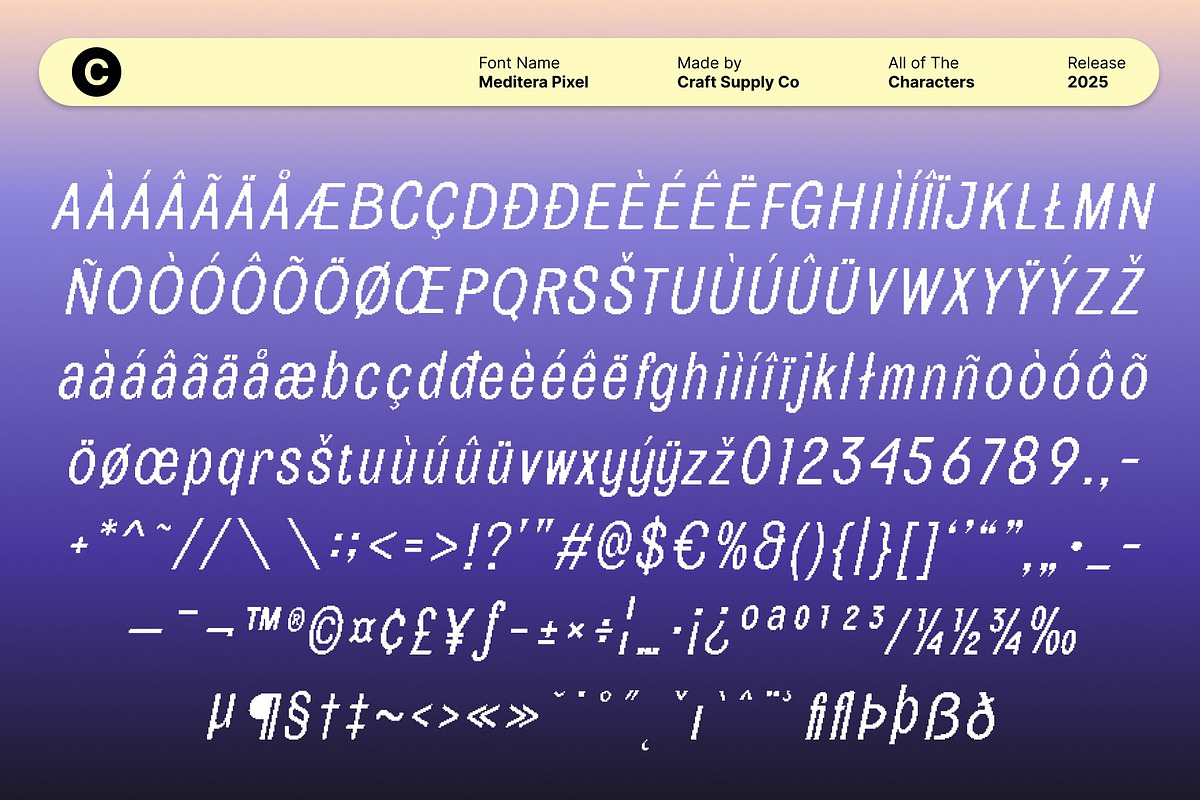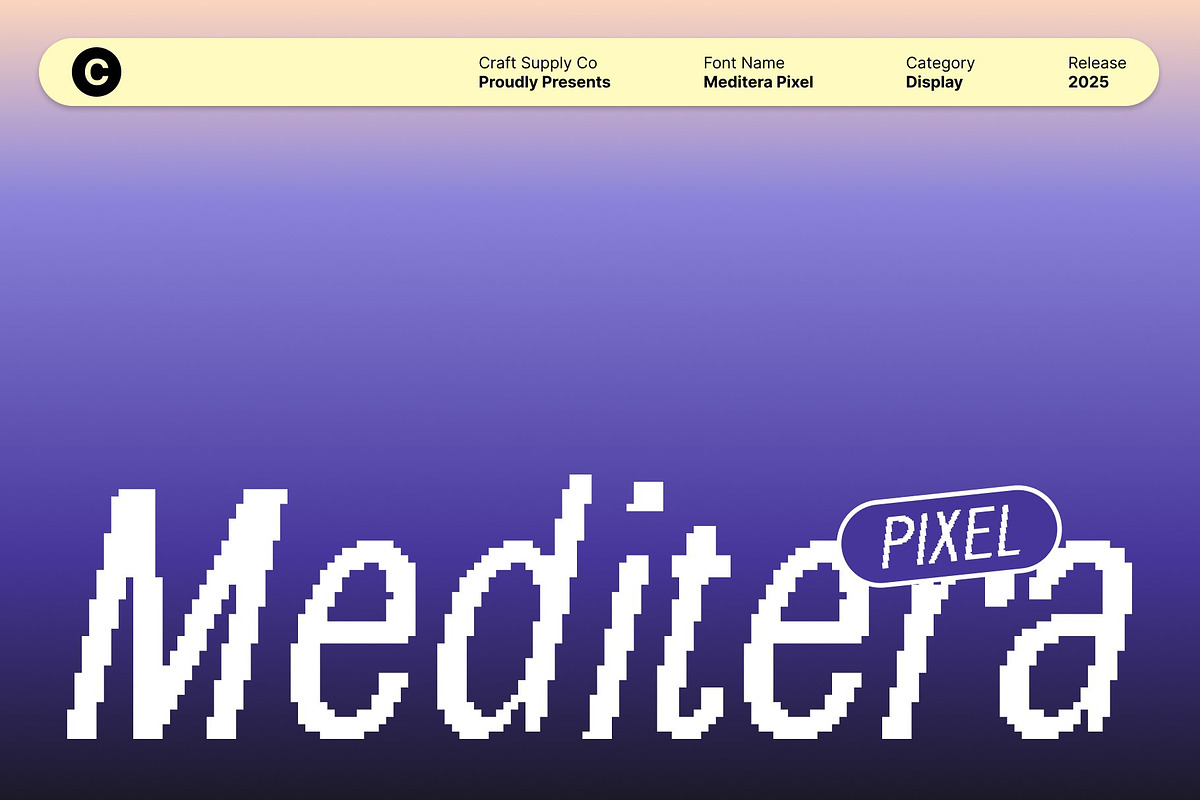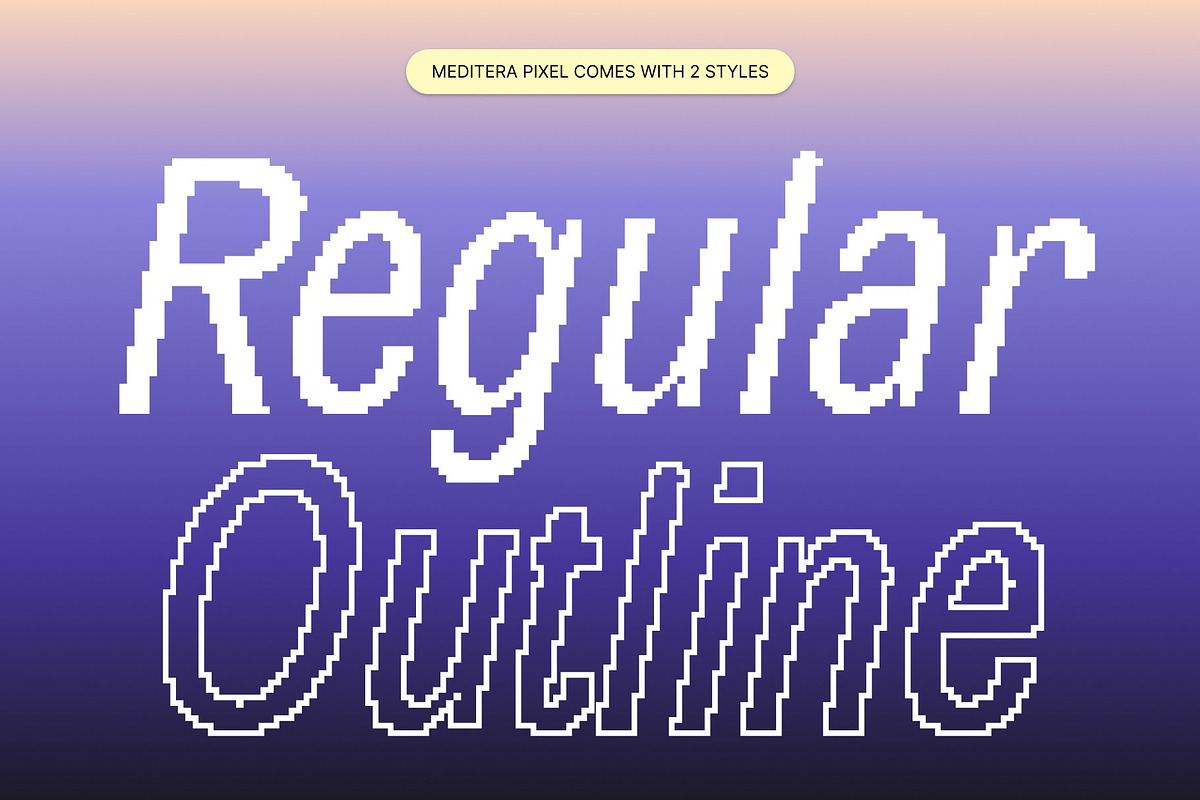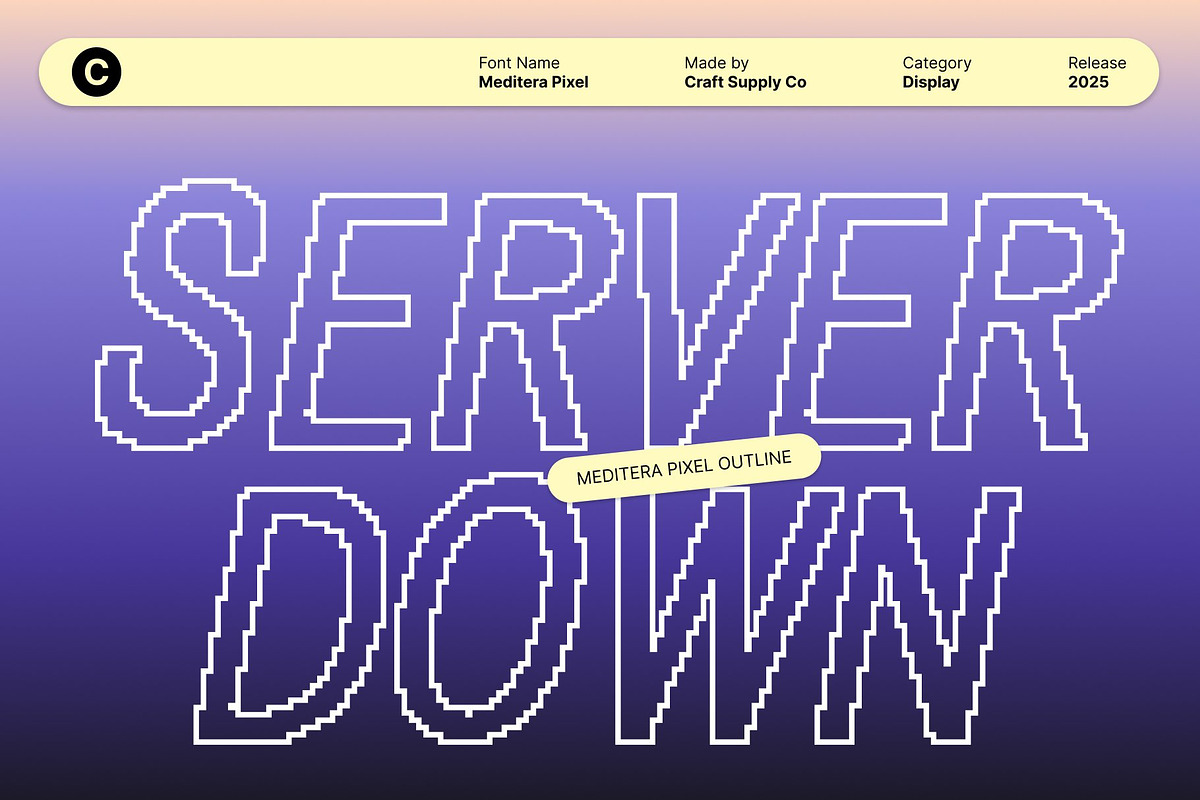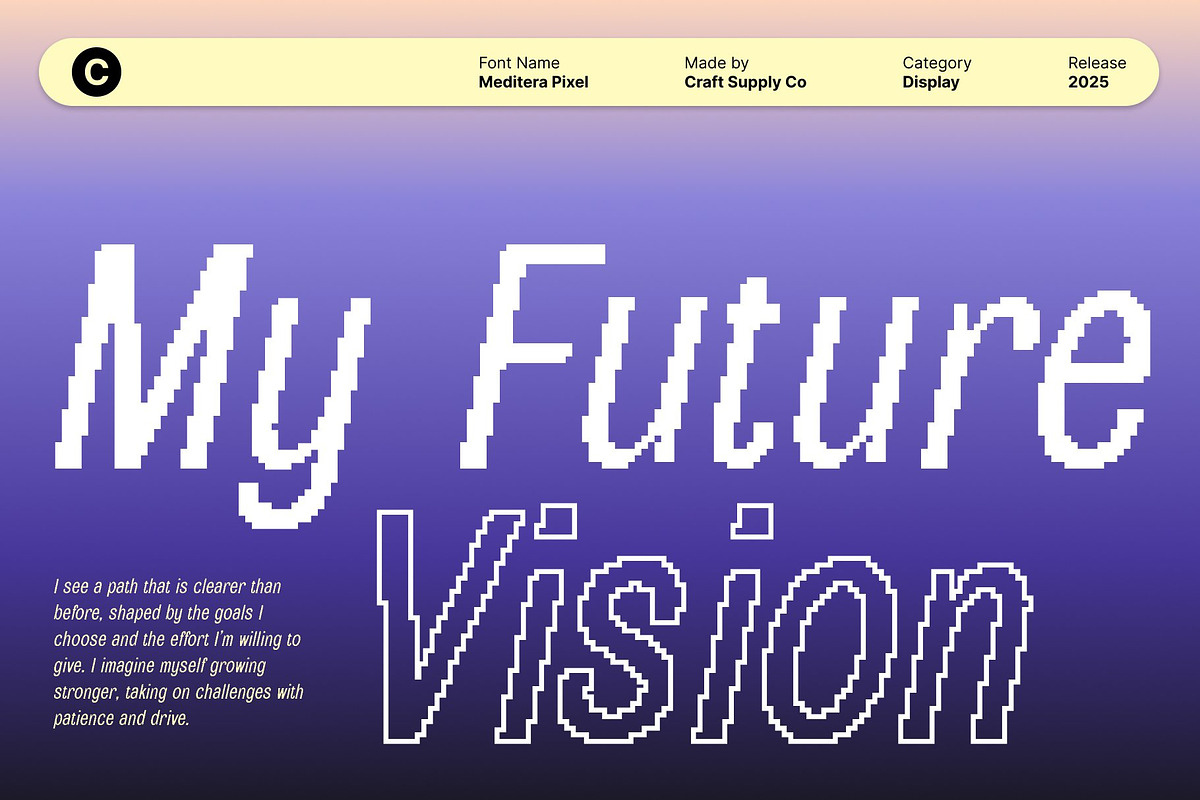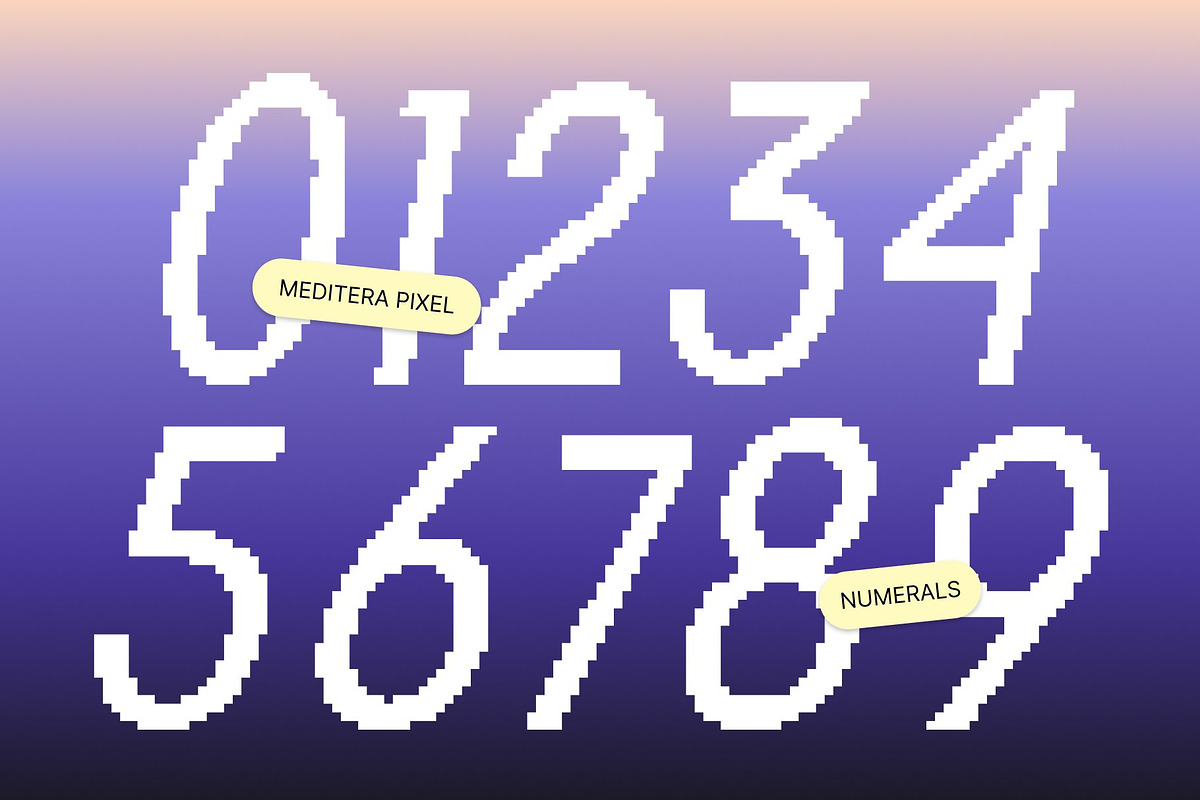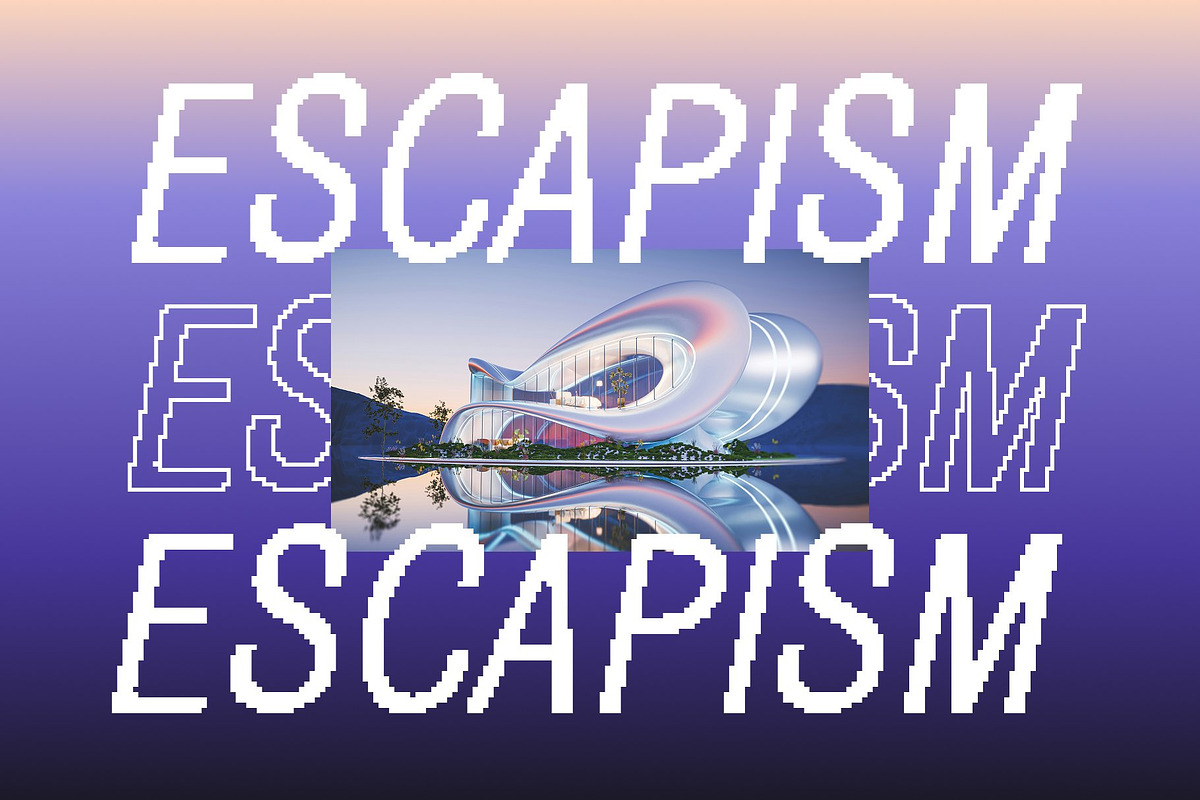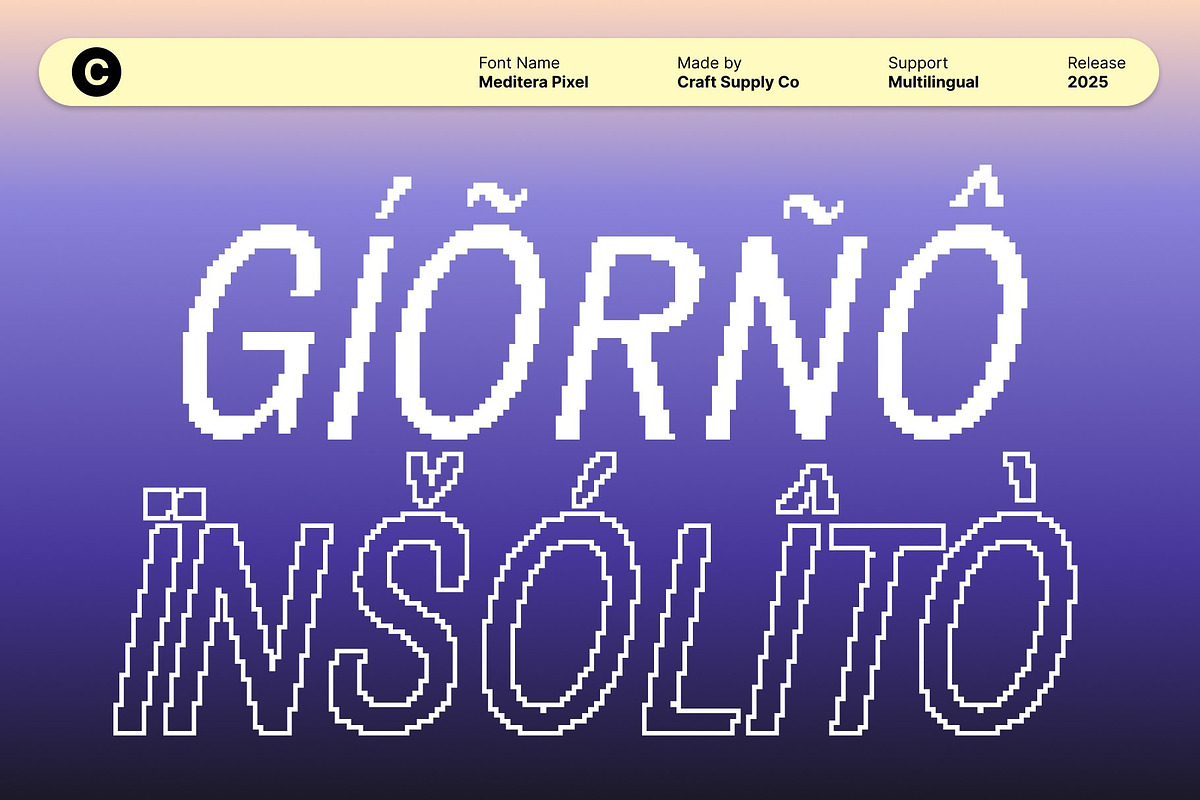
Meditera Pixel
Meditera Pixel – Condensed Sans Serif Display Font with Pixel Precision
Compact and Powerful for Maximum Impact This is a condensed sans serif display font designed to deliver strong visual impact even in tight spaces. Its narrow, streamlined letterforms allow for efficient use of space without compromising readability, making it ideal for bold headlines, posters, and branding projects that demand attention and clarity.
Pixel Style for Modern Digital Appeal Enhanced with an 80-bit pixel-inspired design, this font combines modern sans serif elegance with digital precision. The pixel detailing adds a contemporary tech-savvy edge, giving your typography a distinctive digital personality while maintaining clean, readable forms.
Condensed Design for Versatility and Readability The font’s condensed proportions maximize space efficiency, making it perfect for layouts with limited room. Despite its compact form, each character remains legible and striking, ensuring that your text communicates its message clearly and effectively across print and digital platforms.
Perfect for Headlines, Posters, and Digital Branding This font excels in projects that require both modern sophistication and digital flair. Ideal for branding, editorial layouts, posters, and digital campaigns, it balances readability with pixel-inspired creativity. This font delivers a professional, contemporary, and digitally expressive style, making it a perfect choice for designers seeking high-impact typography with a modern edge.